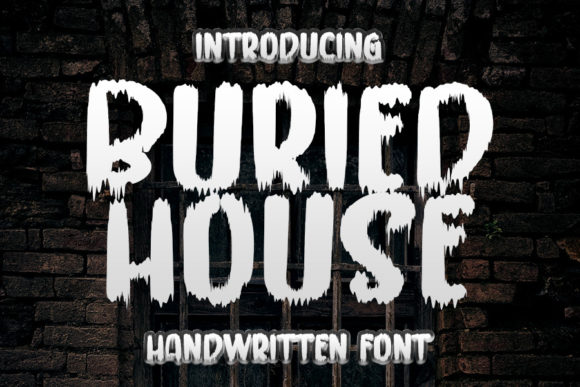
The Spooky Charm of Buried House Font: A Designer’s Delight
I still remember the Halloween project that had me scratching my head, desperately searching for the perfect font to capture the eerie essence of the season. My client wanted something that would make their Halloween-themed party invitations stand out, but I was struggling to find a font that was both scary and fun. That’s when I stumbled upon the Buried House font, and it instantly became the perfect fit. In this article, I’ll share my experience with this unique display font, its features, and how to make the most of it in your designs.
An Honest Review of Buried House Font
What I Love About Buried House Font
- ✨ Unique and eye-catching design: Buried House font is a scary-looking display font that instantly grabs attention.
- ✅ Perfect for Halloween-themed projects: The font’s spooky charm makes it an ideal choice for Halloween-related designs, such as party invitations, decorations, or social media posts.
- 🎃 Fun and playful vibe: Despite its scary appearance, Buried House font has a fun and playful personality that adds a touch of whimsy to your designs.
While Buried House font is an excellent choice for display purposes, it does have some limitations. For instance, it’s not suitable for body text due to its bold and ornate design. Additionally, ⚠️ some characters may not be suitable for use in certain contexts, such as formal or professional designs.
The Backstory of Buried House Font
The Buried House font was designed by a creative team that wanted to capture the essence of Halloween in a unique and fun way. Inspired by old tombstones, creepy mansions, and spooky legends, they crafted a font that’s both scary and playful. The result is a display font that’s perfect for adding a touch of whimsy to your Halloween-themed designs.
| What is Buried House font best used for? | Buried House font is best used for display purposes, such as titles, headings, or captions, in Halloween-themed projects. |
| Is Buried House font available in different styles or variations? | Yes, Buried House font comes with various stylistic alternates, glyphs, and OpenType features that allow you to experiment with different styles and variations. |